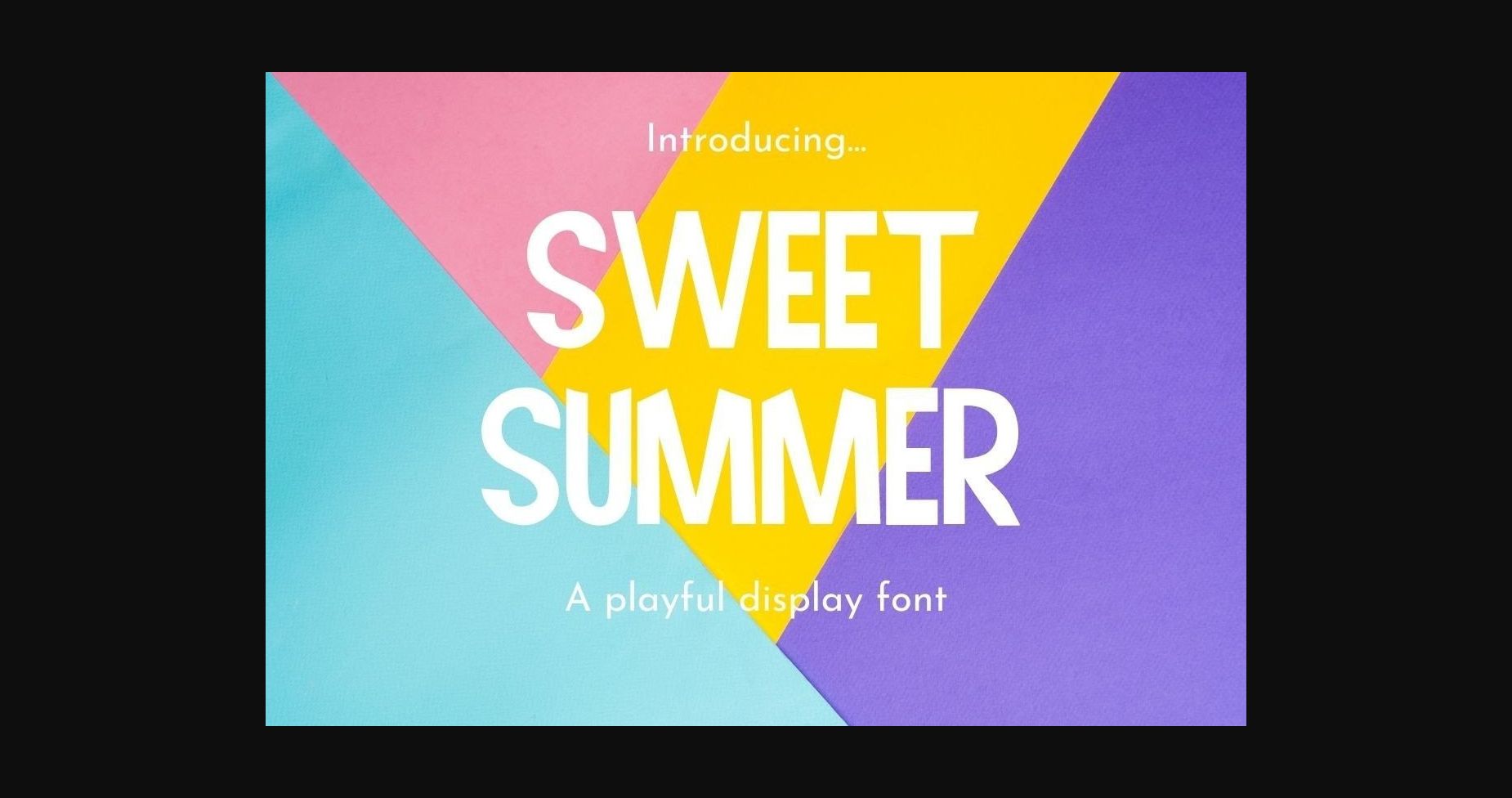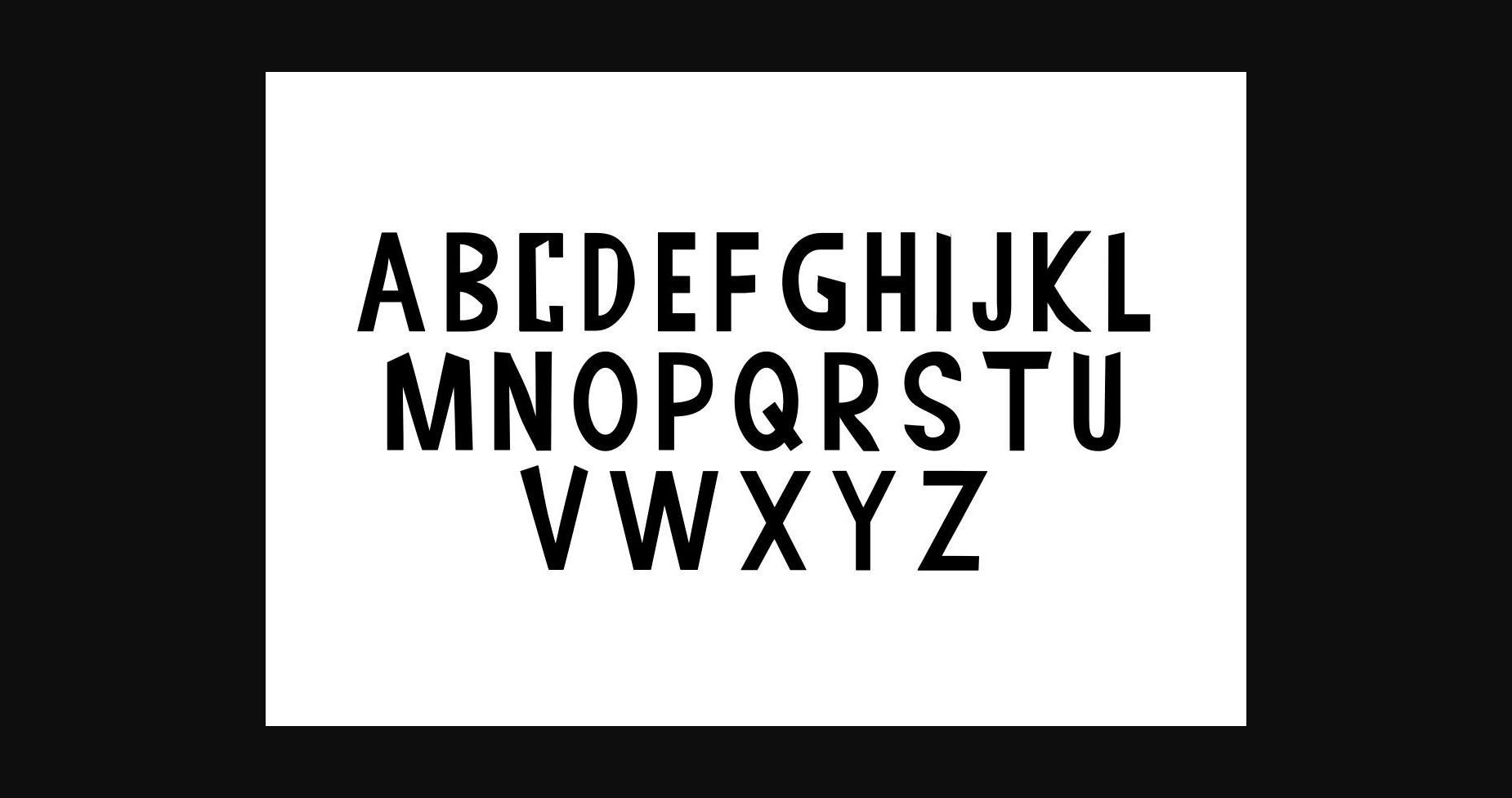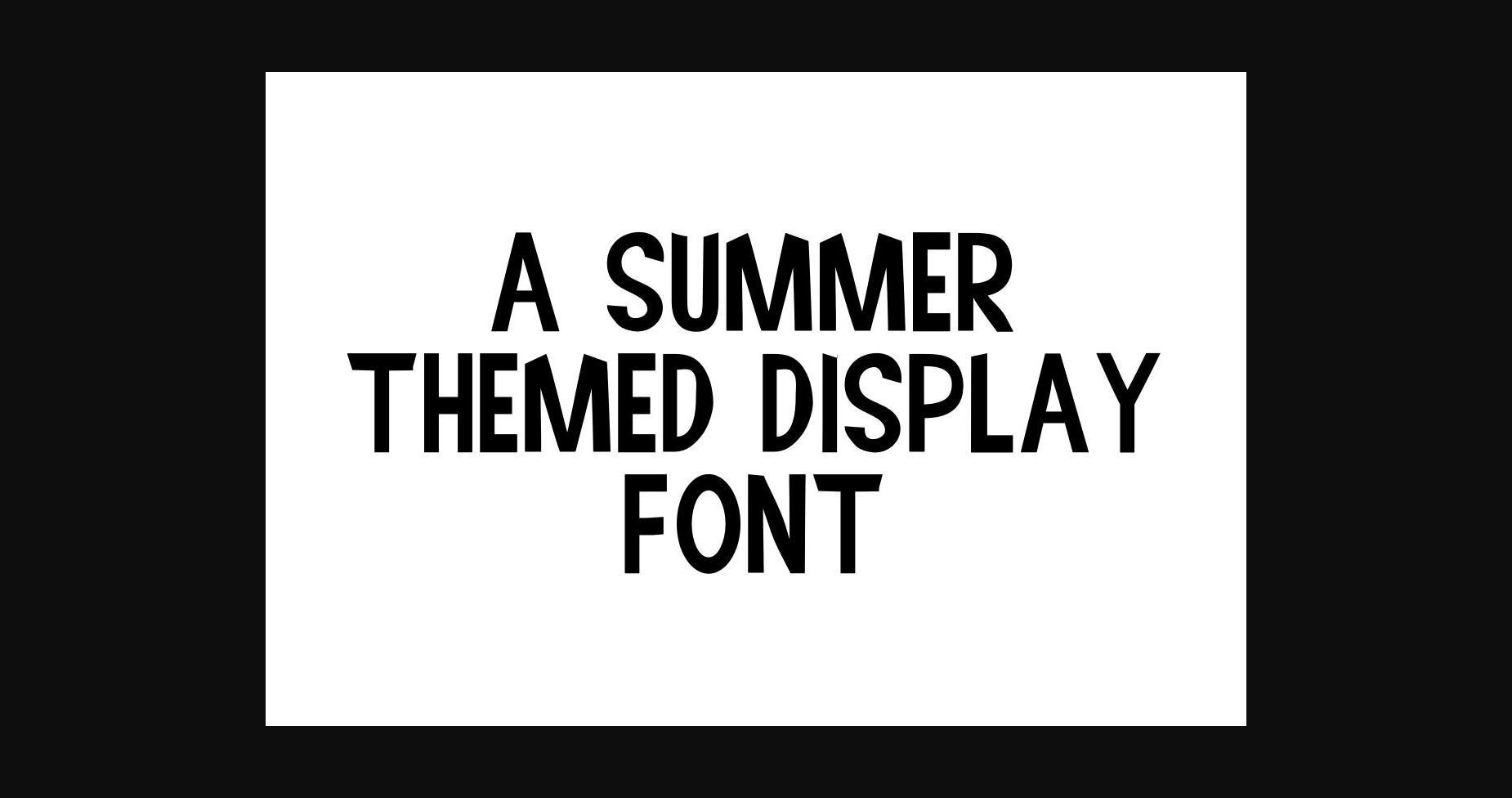
About Sweet Summer Font
A sweet and summery sans serif font in a funky boxy style. This font would look great on your tropical-themed website or your merchandise that has a beach theme. This font is PUA encoded, which means you can access all of the glyphs and swashes with ease!